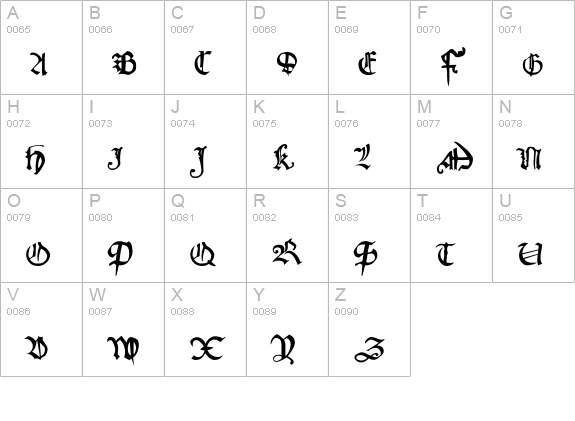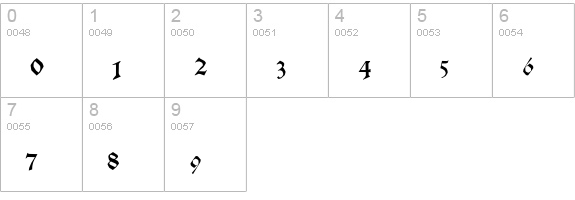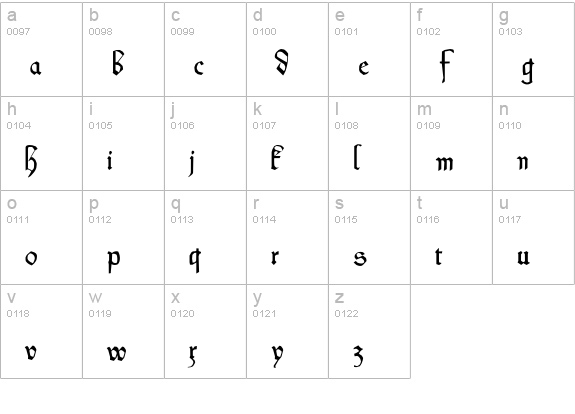
Koberger Font Details
Introducing the exquisite Koberger font, a timeless typeface that effortlessly combines elegance and readability. With its classic yet modern design, Koberger is perfect for a wide range of projects, from branding to editorial design. This versatile font features clean lines and well-balanced proportions, making it ideal for both display and body text. What sets Koberger apart is not only its sophisticated aesthetic, but also its accessibility. Yes, you read that right - Koberger is available for free download at FontsMarket.com. Now you can elevate your designs with this high-quality font without any cost barriers. Don't miss out on the opportunity to add Koberger to your typographic arsenal and take your projects to the next level. Download Koberger today and let your creativity soar!